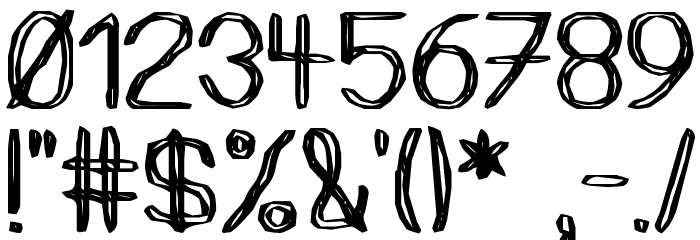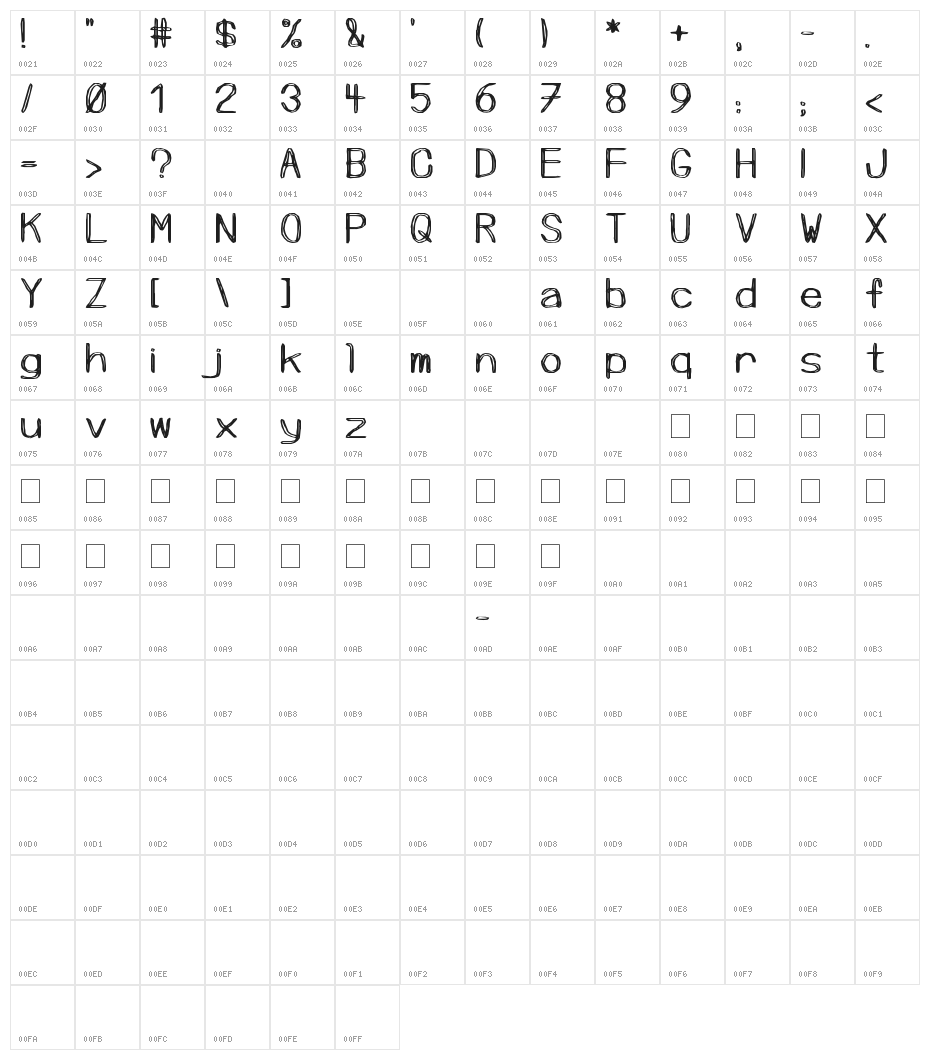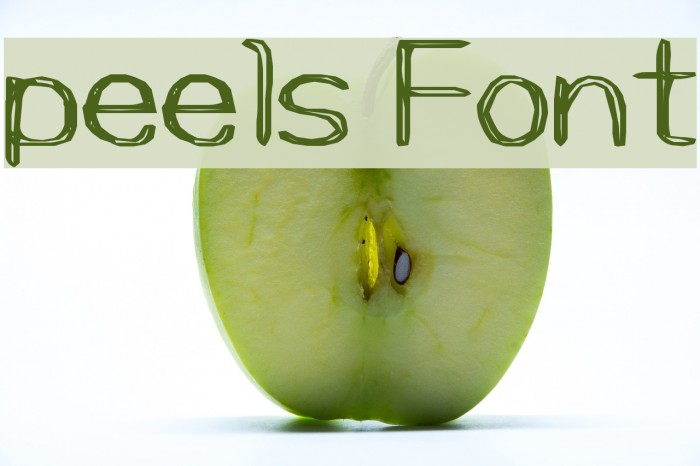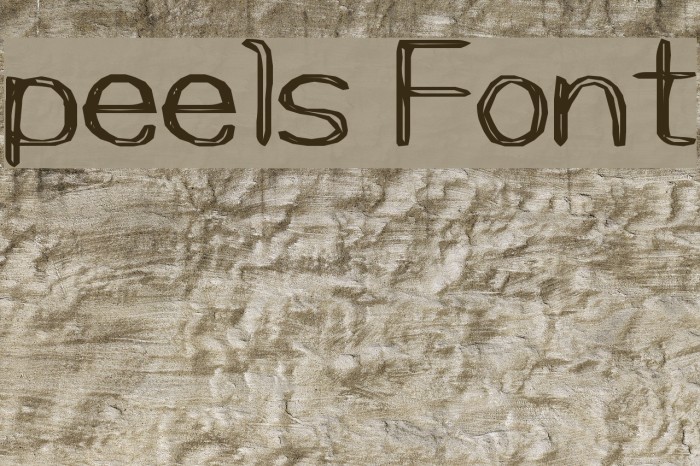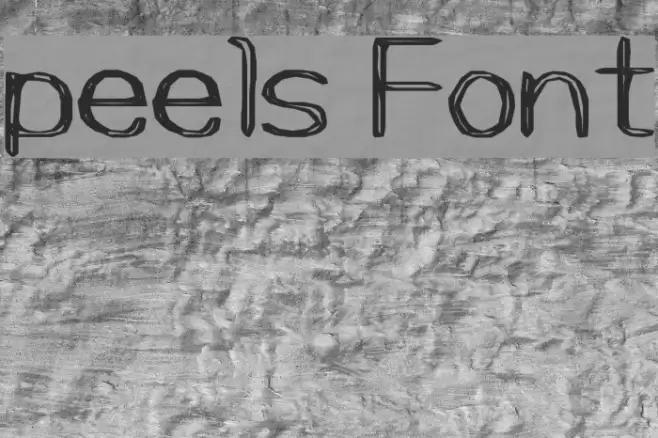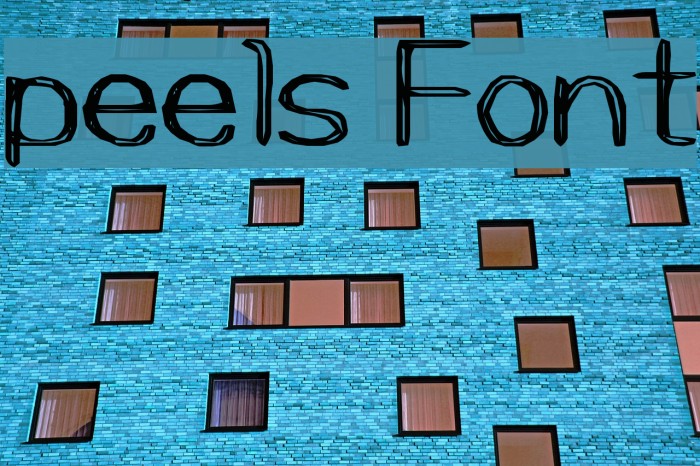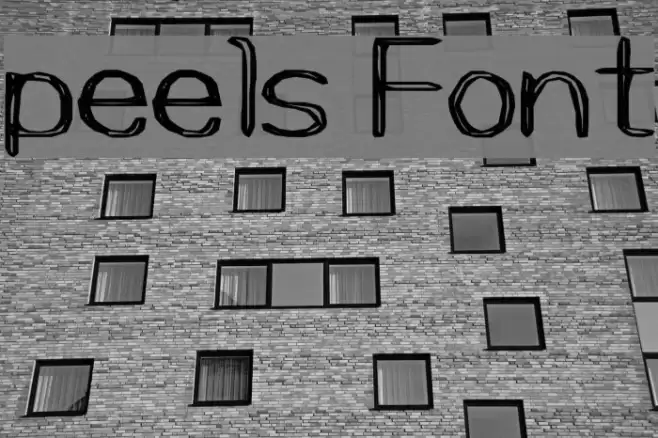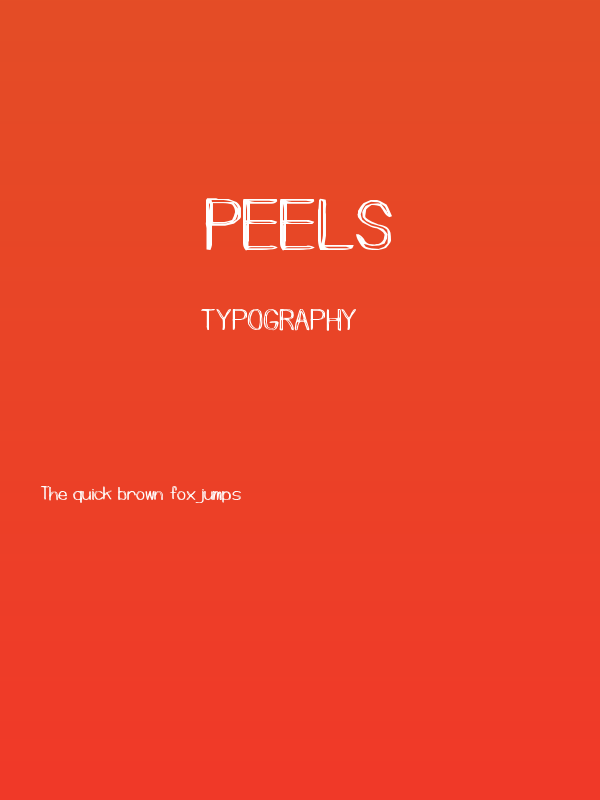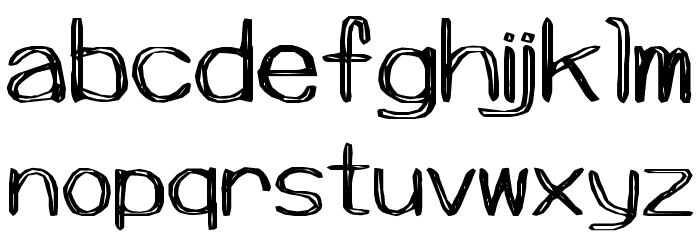
peels Font
peels Description
This font features a playful and hand-drawn style, characterized by irregular strokes and a casual, informal appearance. The letters have a slightly uneven baseline, adding to the whimsical and artistic feel. The uppercase and lowercase letters maintain a consistent style, with rounded edges and a slightly rough texture that mimics the look of being drawn with a marker or brush. The numerals and special characters follow the same aesthetic, ensuring a cohesive look across all glyphs. This font exudes a sense of creativity and spontaneity, making it ideal for projects that require a personal touch.
| Proposed Projects | Ideal for children's books, creative posters, greeting cards, and informal branding. |